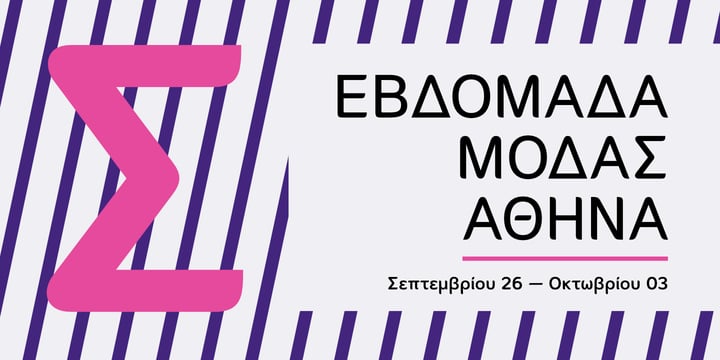
Caldina
La familia tipográfica Caldina fue diseñada por Ceyhun Birinci y publicada por Artegra. Caldina contiene 10 estilos y opciones de paquete familiar.
Caldina is a delicious font family that adds a great taste to any given project. From light to bold, it comes with 10 fonts with matching true italics. Each font contains 659 glyphs which offers a great amount of language support including the Greek, Russian and other languages using the Cyrillic alphabet. Each glyph has been designed to perfection and kerned with countless amount of kerning pairs. When it comes to Opentype features it has oldstyle figures, tabular lining, tabular oldstyle, ligatures, subscript and superscript, fractions and language localizations (such as the Polish kreska). It’s great for display purposes but also its high legibility makes it a great text font as well. Although not limited to, it’s perfect for food, beverage and coffee brands as well as the cos- metic brands. Let it be branding, advertising, packaging or posters, Caldina is there to add that special flavor that you’re looking for.